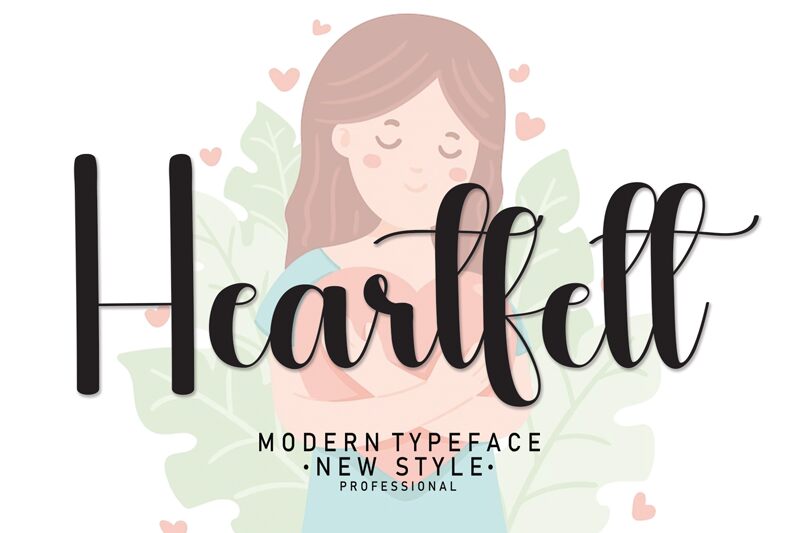
Heartfelt
Heartfelt font, designed by Scratchones, radiates warmth and personality through its beautifully crafted handwritten style. Its flowing curves and fluid strokes evoke a sense of intimacy, making each letter feel like a personal touch. The playful yet elegant nature of this font captures attention, thanks to its expressive loops and inviting contours.
This charming typeface shines in contexts that demand a human touch—perfect for greeting cards, invitations, or branding that seeks to connect emotionally with audiences. Whether used for playful headlines or heartfelt notes, Heartfelt encapsulates sincerity and creativity, ensuring your message resonates deeply. Explore this unique font to infuse your designs with character and charm!